Behind the Scenes in Typeface Creation: Visual Adjustment 02: “Thickness of Line”
I would like to introduce a visual adjustment point related to the thickness of the vertical stroke and horizontal stroke.
The vertical stroke and horizontal stroke introduced in this article are examples in which the rules of “thicker on the bottom” and “thicker on the right” are followed for creation, as in many cases. Similar to the area of space in the previous article, this is because the top is perceived to expand to the human eye.
I would like to introduce this point with the example of the character “圭,” in which there are many horizontal strokes. When the thickness of the horizontal strokes and space between the horizontal strokes are even, the “土” on the top looks bigger.
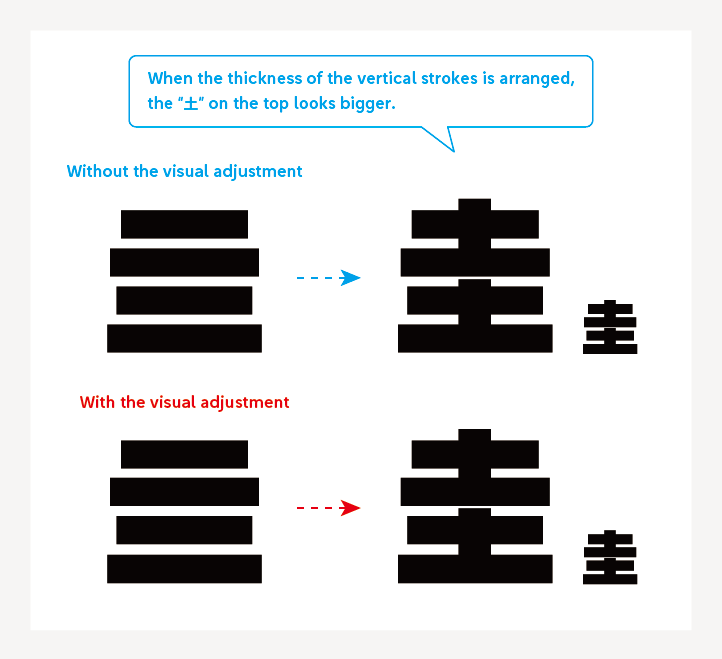
As the characters “田” and “圭” are structured with only straight vertical strokes and horizontal strokes, the shapes are simple and symmetrical. However, the thickness of each line and arrangement are not mechanically determined. These characters are created in consideration of how they are seen to the human eye in accordance with the visual adjustment of “thicker and wider the right side and the bottom.”